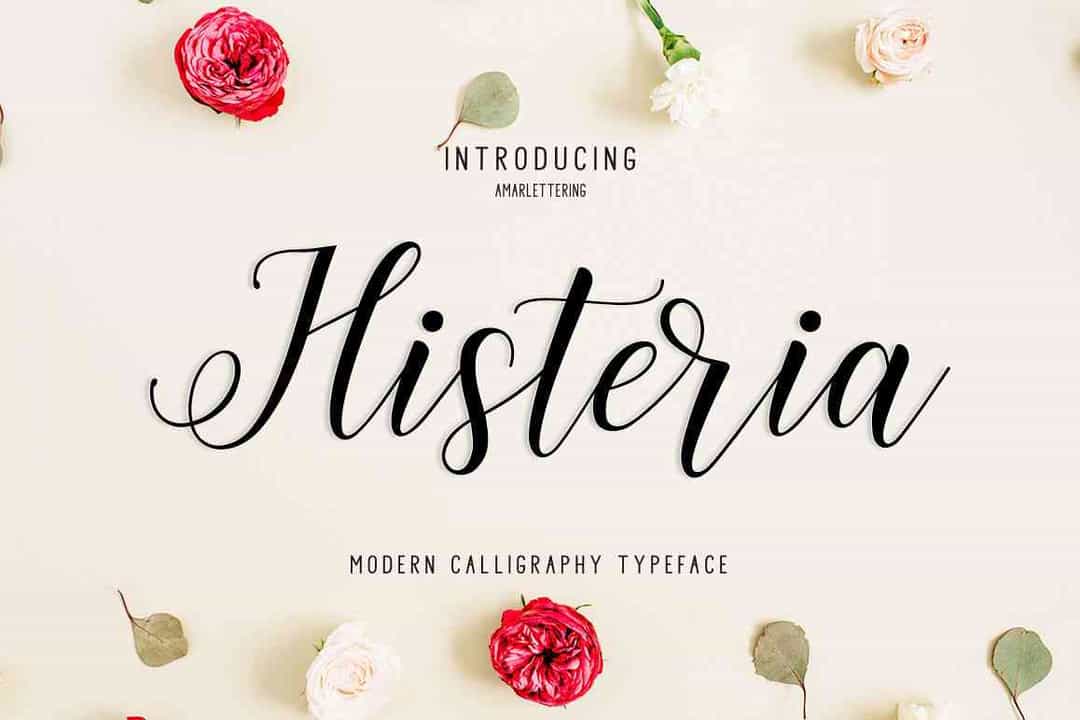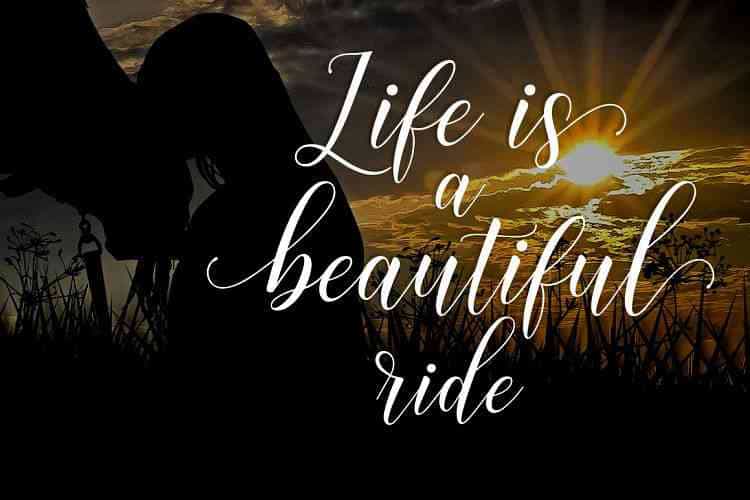
Histeria Font by Amarlettering! Introducing new modern the fresh script a beautifully handcrafted font in calligraphy with contemporary characters and fashionable style. Perfect for invitations cards like greeting cards, corporate card, posters, quotes and more!